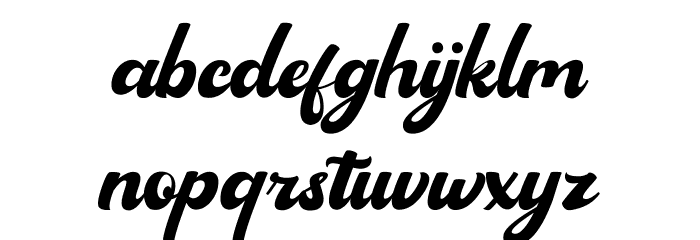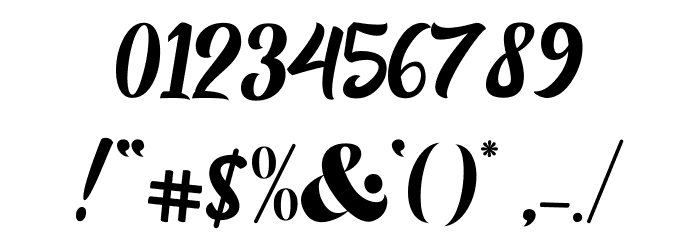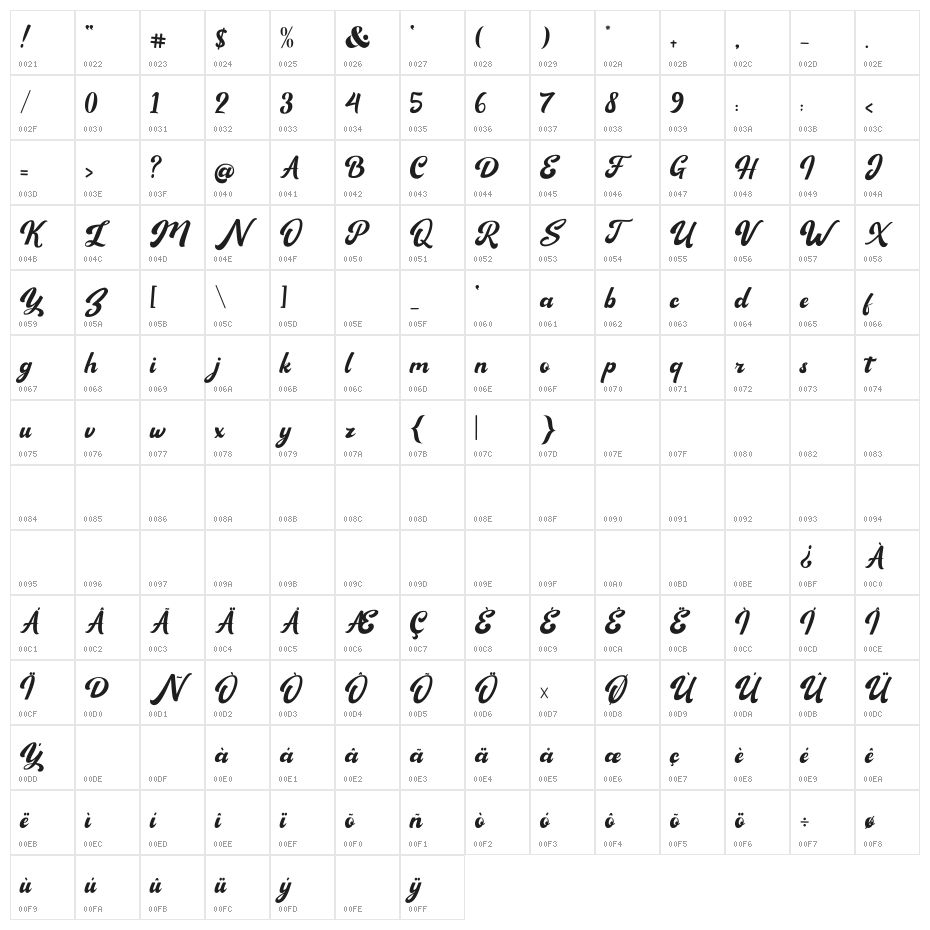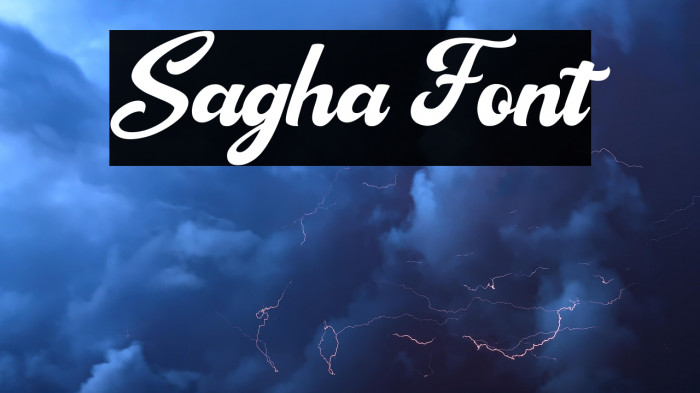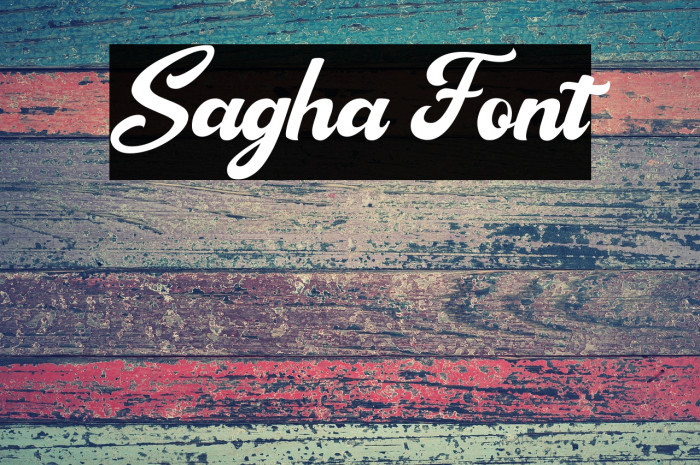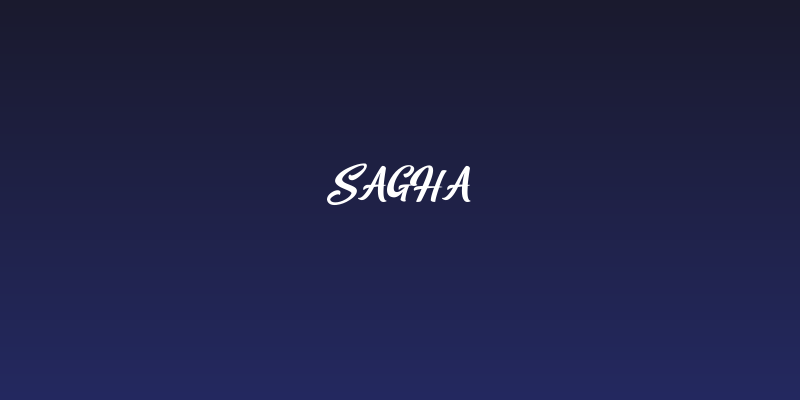
Sagha Font
This font features a bold, flowing script style with a strong presence. The characters are elegantly connected, creating a sense of movement and fluidity. The uppercase letters are particularly ornate, with sweeping curves and flourishes that add a touch of sophistication. The lowercase letters maintain a consistent style, with smooth transitions between strokes. The numerals are clear and bold, matching the overall aesthetic of the font. Special characters are well-integrated, maintaining the decorative style. This font is ideal for projects that require a touch of elegance and flair.
A bold, flowing script font with elegant, connected characters.
- Proposed Projects: Ideal for wedding invitations, branding, logos, and elegant signage.